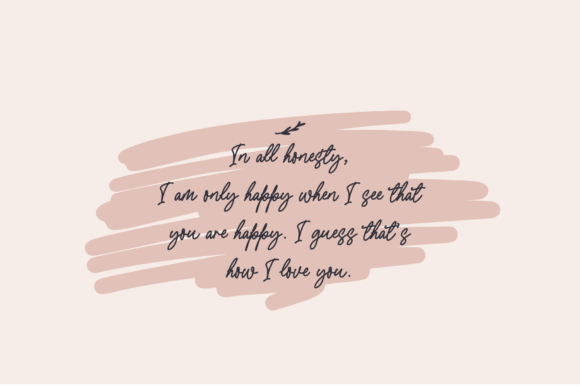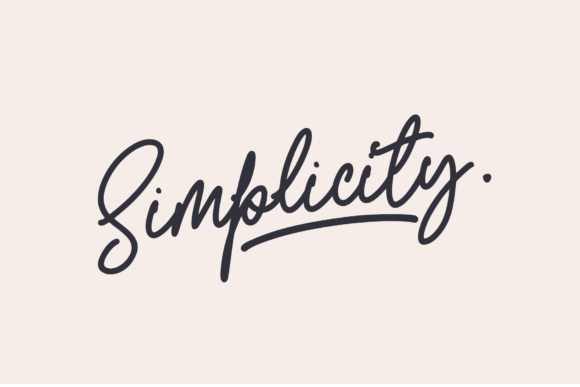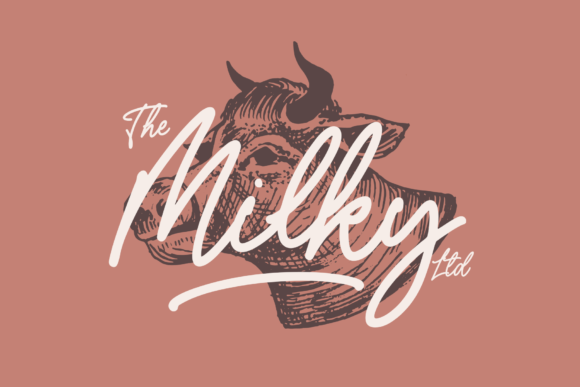
Introduction to Quinley Font
Have you ever stared at a blank page, eager to bring a creative project to life, only to be halted by the perfect font eluding you? It’s a frustrating feeling, but one that’s all too familiar for designers. This is where the Quinley Font comes in – a delicate, elegant, and flowing handwritten font that’s sure to elevate your designs to new heights.
With its beautiful and well-balanced characters, the Quinley Font is a versatile design resource that can be used in a wide range of creative projects, from elegant invitations to high-quality digital art. Its PUA encoding ensures that you can access all of the glyphs and swashes with ease, making it a valuable addition to any designer’s toolkit.
Whether you’re working on a design project with a transparent background or looking for a free download to add some flair to your next creative endeavor, the Quinley Font is sure to be a game-changer. In this article, we’ll delve deeper into the world of this stunning font and explore its many benefits for designers.
Key Features of Quinley Font
- High-quality design resource suitable for creative projects, offering a unique and modern aesthetic.
- Each font file is carefully crafted to provide optimal clarity and legibility, with a resolution of 300 DPI for high-quality printing.
- Perfect for use in digital designs, such as logos, icons, and graphics, due to its clean and minimalist design.
- Quinley Font is designed to be highly customizable, allowing users to adjust font sizes, colors, and styles to suit their specific design needs.
Honest Review: Quinley Font
As a designer, I’m always on the lookout for high-quality design resources to enhance my creative projects. Recently, I stumbled upon the Quinley Font, and I’m excited to share my honest review with you.
- ✨ Elegant and refined aesthetic: The Quinley Font boasts a sophisticated design that’s perfect for luxury brands and high-end creative projects.
- ✨ Versatile: This font is suitable for both digital and print media, making it a great addition to any designer’s toolkit.
- ⚠️ Limited character set: The Quinley Font has a limited character set, which may not be suitable for projects that require a wide range of characters.
- ⚠️ No transparent background option: Unlike some other fonts, the Quinley Font does not offer a transparent background option, which may be a drawback for designers who need this feature.
Overall, the Quinley Font is a great addition to any designer’s collection. While it may have some limitations, its elegant aesthetic and versatility make it a valuable resource for any creative project.
Tips for Getting the Most Out of Quinley Font
To maximize the use of Quinley Font, experiment with different font sizes, colors, and styles to create a unique design. You can also pair Quinley Font with other fonts to add variety to your design.
Common Use Cases for Quinley Font
Quinley Font is ideal for creating eye-catching headings, titles, and captions for your design projects. It’s also perfect for creating social media graphics, blog posts, and marketing materials.
What is the recommended font size for the Quinley Font?
The recommended font size for the Quinley Font varies depending on the design context. For body text, we recommend using a font size between 12-14 points, while for headings and titles, you can use font sizes ranging from 18-24 points. Experiment with different font sizes to find the optimal look for your design project.